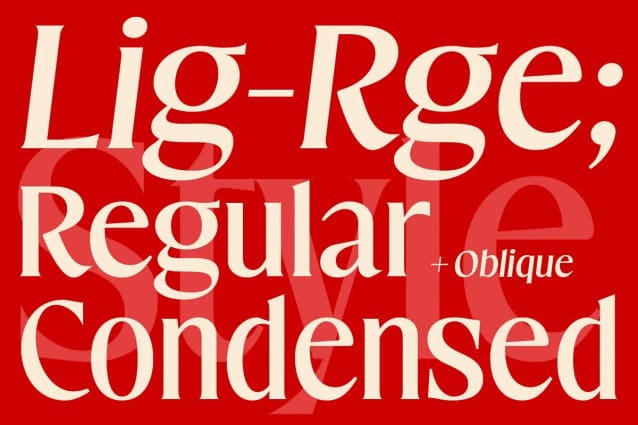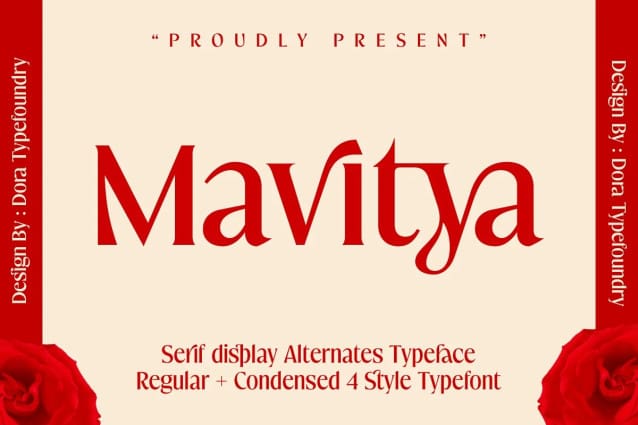
Mavitya Font
Mavitya Font is a serif font with a classic but modern style with smooth curves and beautiful binding, consisting of regular and condensed versions with four types. allowing for a very sophisticated and contemporary approach to typography and the unique look of the font it also features ligatures and multi-language support. This font is made perfect for application especially on logos, and many other formal forms Mavitya provides a distinct, creative and expressive message for your branding, advertising, packaging, headlines, magazines, websites and other large projects.